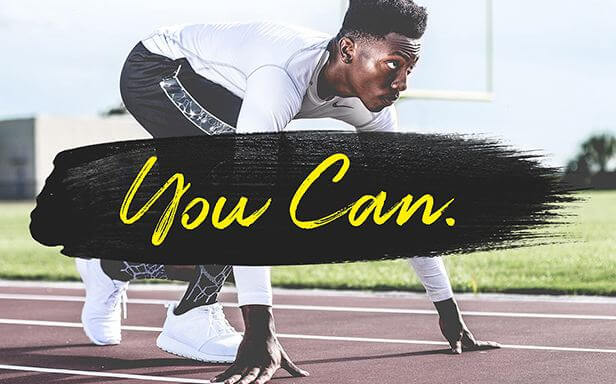
Perfetto Brush Font
Introducing the Perfetto Brush Font! Created by Davide Bass, this premium font is reminiscent of the Geomanist font, typically available on CreativeMarket. However, today it is available for free download.
It is a famous font you should use to craft elegant logos, pictures, and headings for posters and web sites. The font entails upper and lower case letters.
Style Of Perfetto Brush Font